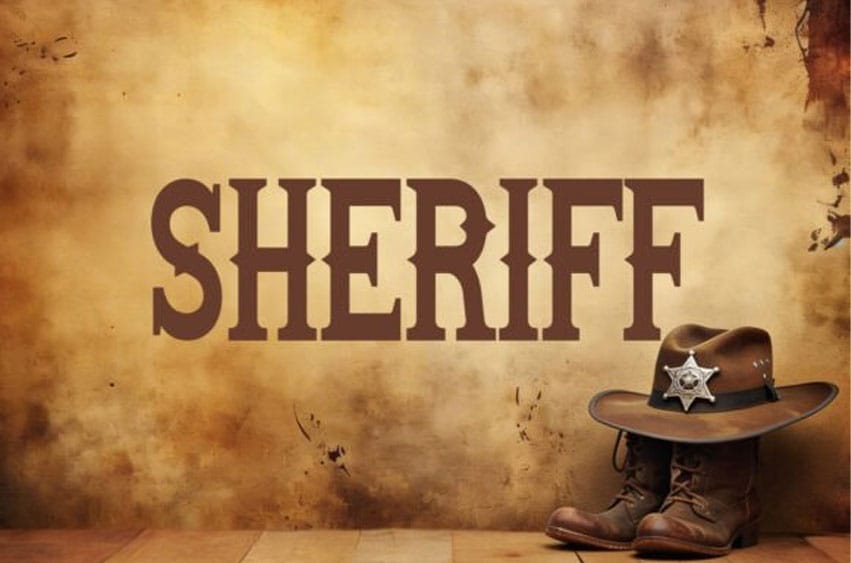
Sheriff Slab Font Western Slab Serif Font. Command the frontier of design with Sheriff, a rugged Western slab serif font that captures the legendary spirit of the American Old West. Characterized by its massive, blocky serifs and distinctive “mid-stem spurs,” Sheriff balances architectural authority with the weathered soul of a vintage wanted poster. It is the definitive choice for brands looking to communicate grit, heritage, and unwavering confidence. Ideal for craft breweries, steakhouse identities, leather-goods logos, and artisanal beard-care products.
Sheriff is engineered for high-impact visual storytelling. It anchors your layout with a sense of historical gravitas, making it an essential tool for designers working on projects that require an authentic, masculine, and timeless aesthetic.